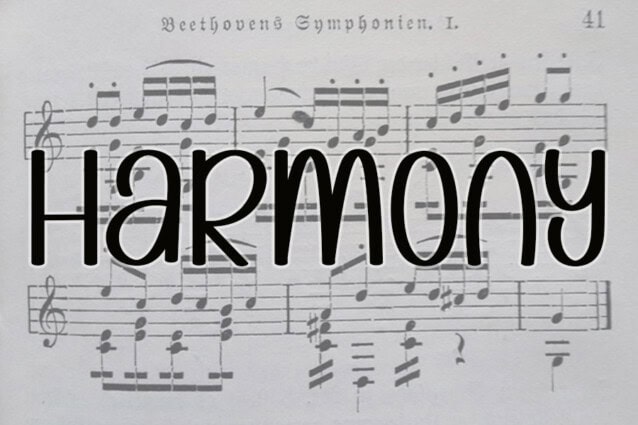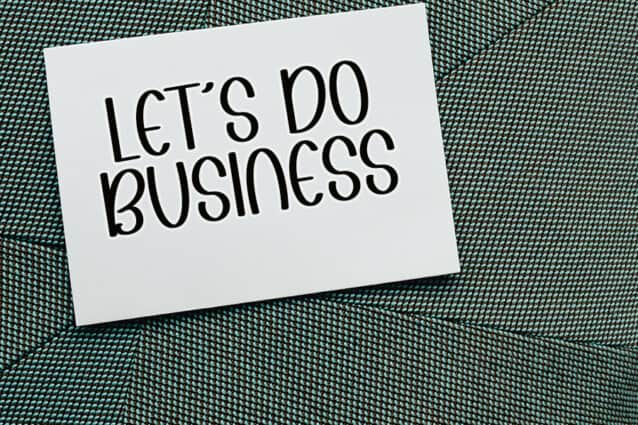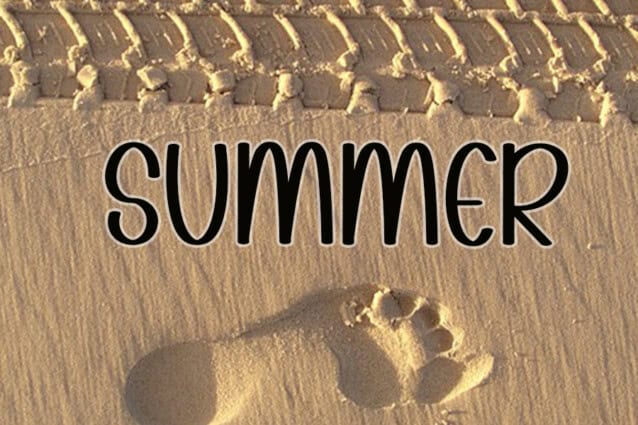
Pristine Display Font
Pristine Display Font is a fun and bold display font that looks like it was written with a marker. Its playful letters are great for making eye-catching headlines and designs, adding a lively touch to any project!